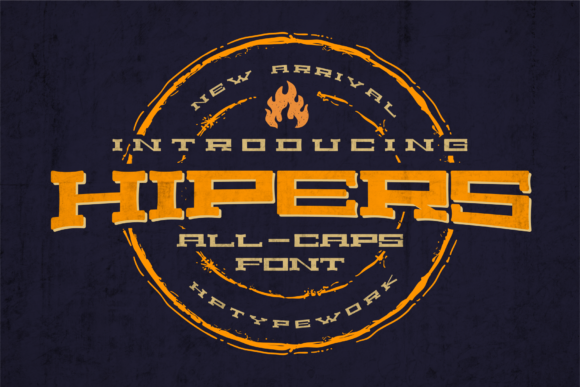
Embrace the eccentric and daring essence of Hipers Font, a display font family that redefines modern typography with its captivating vintage charm. Meticulously crafted by the skilled hands at hptypework, this font exudes a unique blend of coolness, assertiveness, and a touch of nostalgia.
Hipers Font is not just a collection of letters and symbols; it's an invitation to break free from the ordinary and embrace your creative flair. With its carefully balanced casualness, this font effortlessly adds a touch of individuality to your designs, whether you're creating eye-catching headlines, playful social media posts, or stunning branding materials.
Immerse yourself in a world of boundless creativity as you explore the endless possibilities that Hipers Font offers. Its versatile nature makes it an ideal choice for a wide range of design projects, from quirky logos and posters to captivating website headers and product packaging. Unleash your imagination and let Hipers Font guide you towards designs that resonate with your audience and leave a lasting impression.
But what truly sets Hipers Font apart is its ability to evoke emotions and tell stories through its distinct character. Its assertive strokes command attention, while its vintage charm adds a touch of nostalgia and warmth. Together, these elements create a font that speaks to the heart, inviting viewers to connect with your brand on a deeper level.
Don't settle for ordinary fonts that blend into the background. Embrace the remarkable and make a statement with Hipers Font. Let your designs radiate confidence, originality, and a touch of vintage allure. It's the perfect font for those who dare to be different, who seek to captivate their audience, and who strive to leave an indelible mark on the world of design.